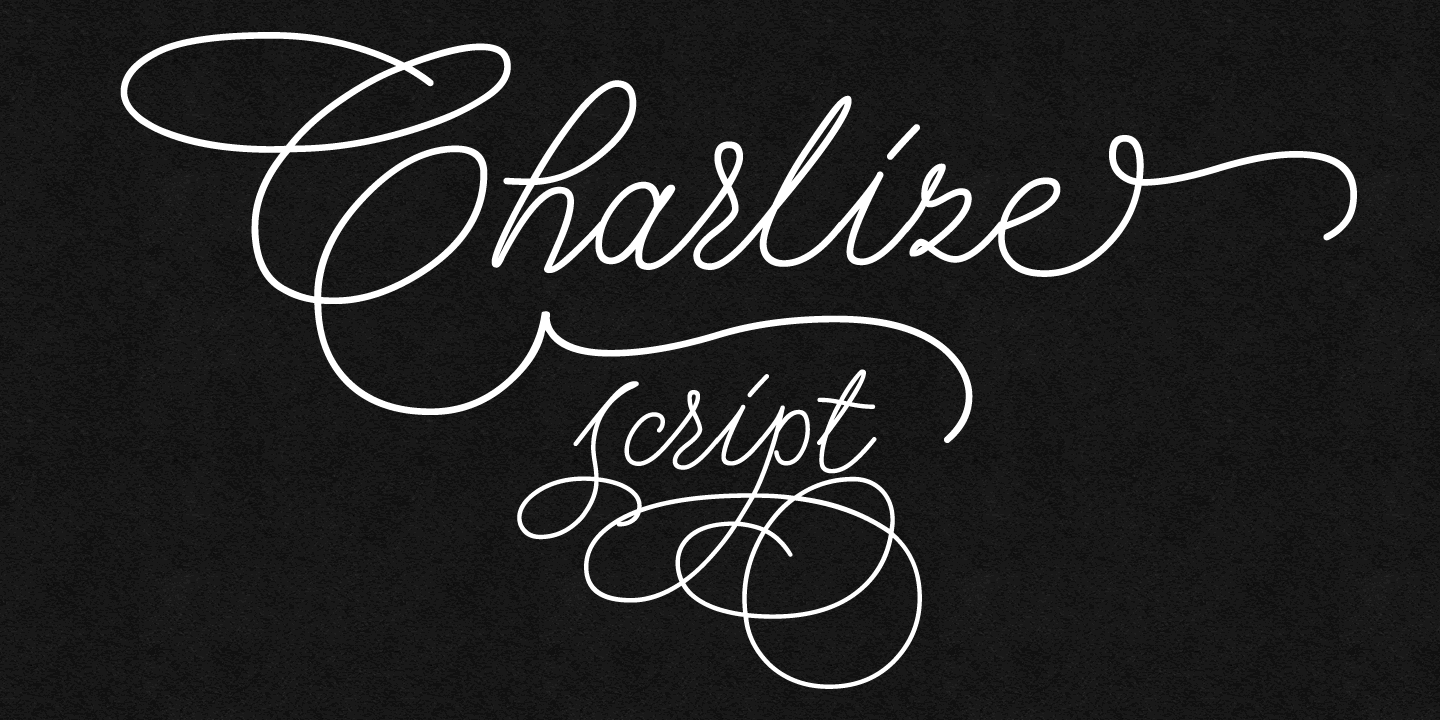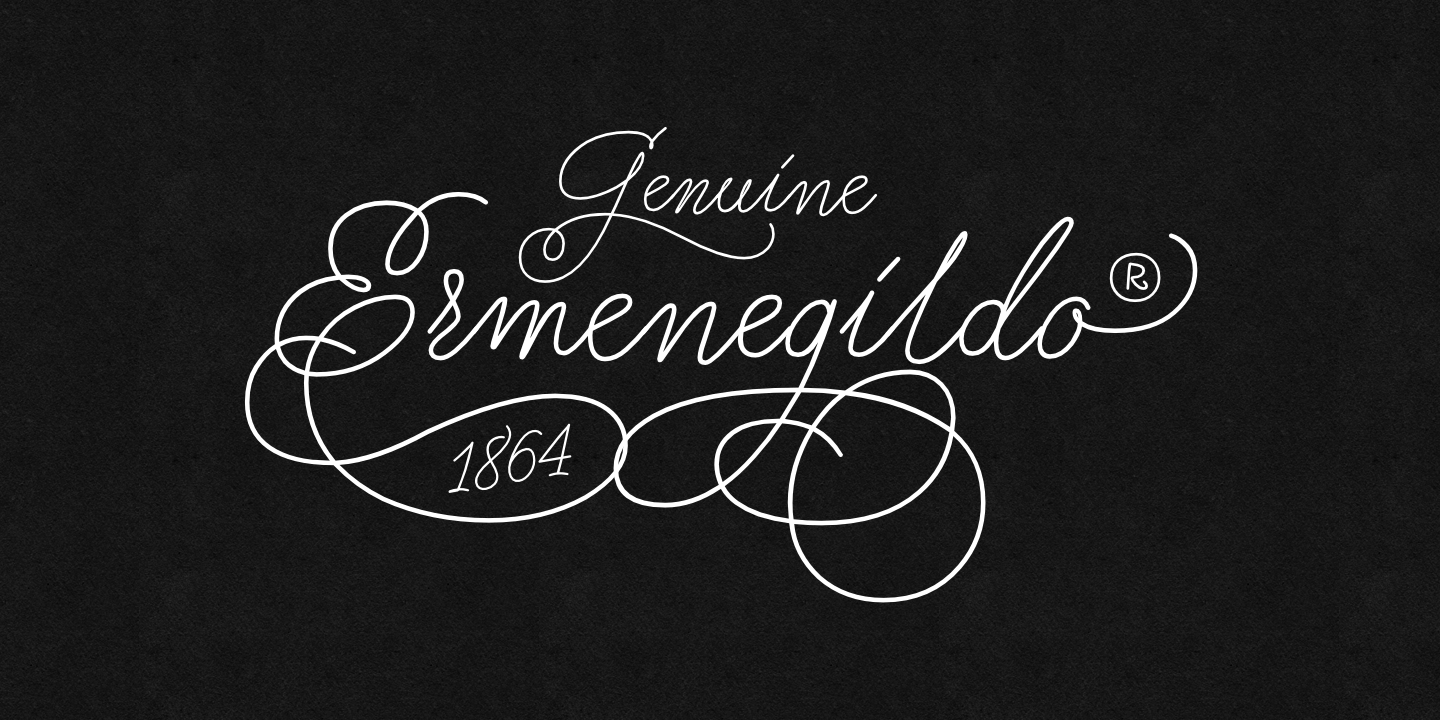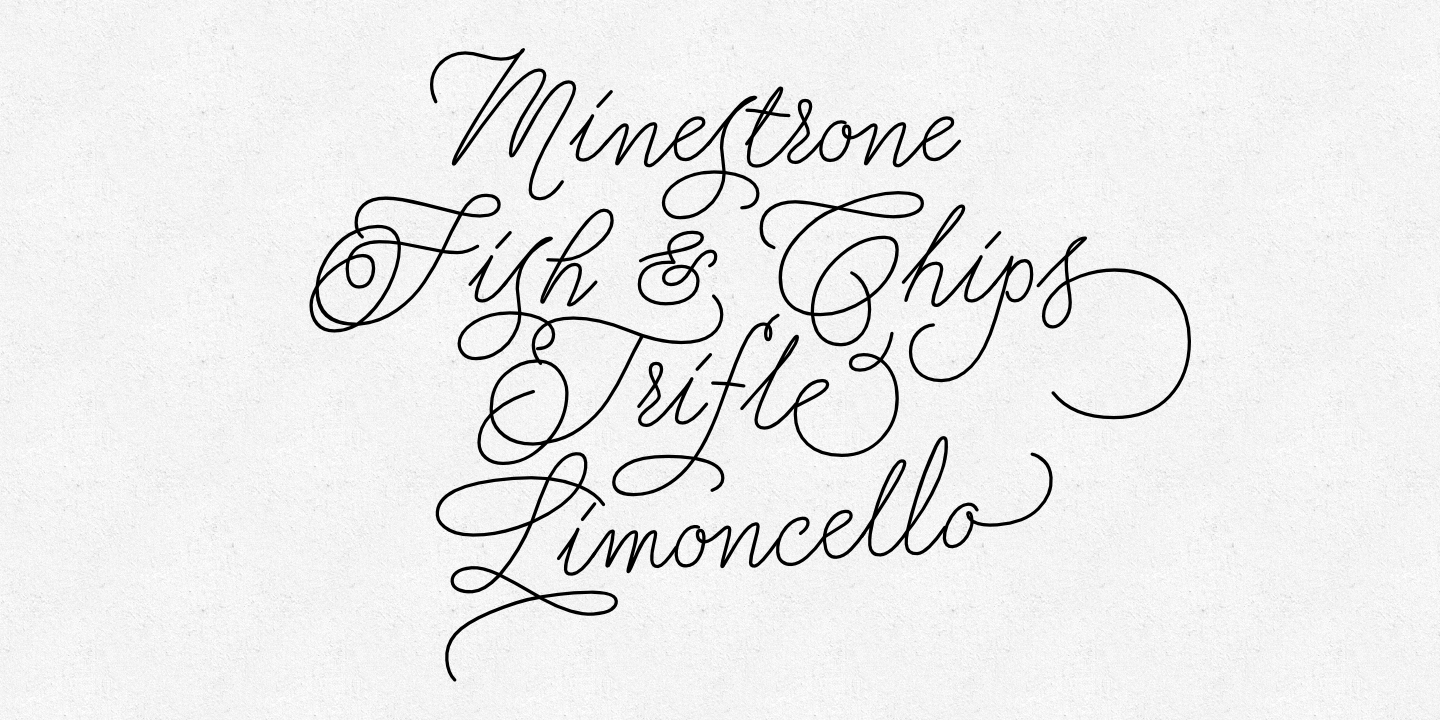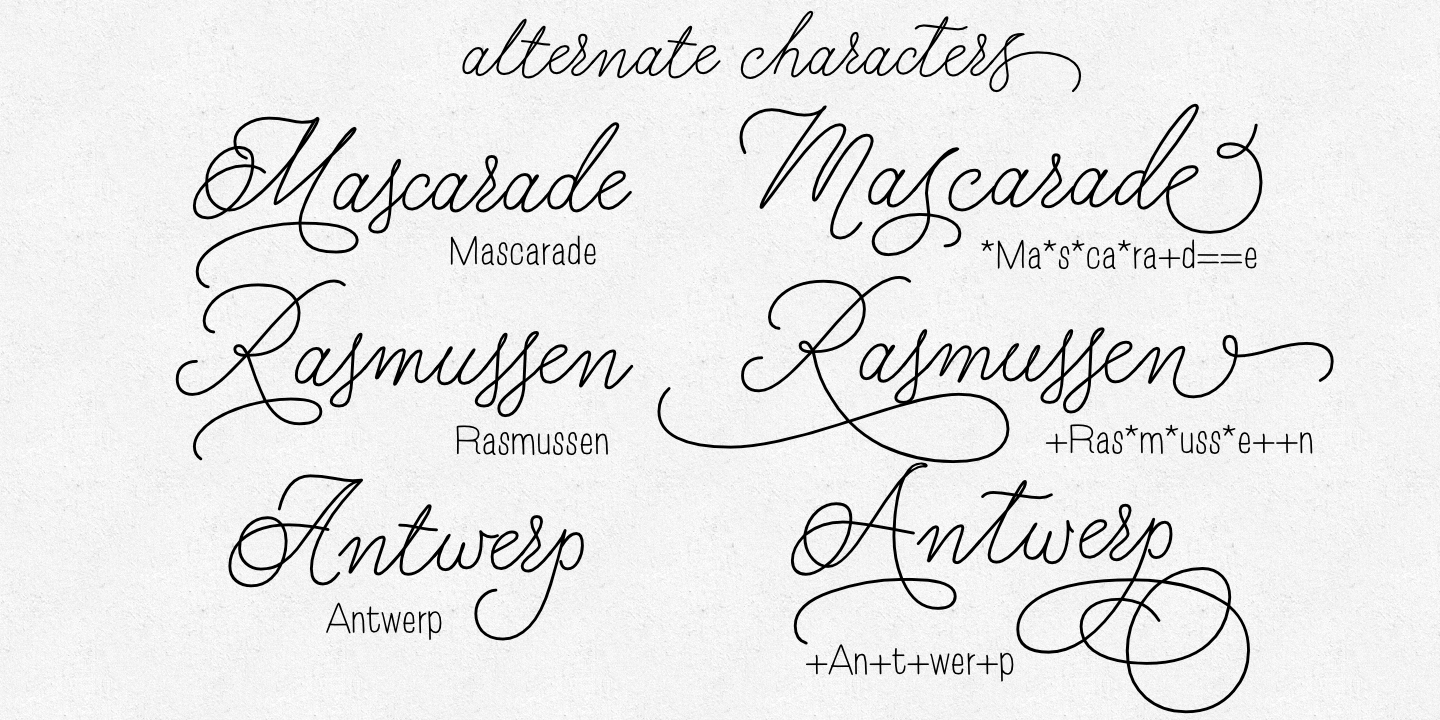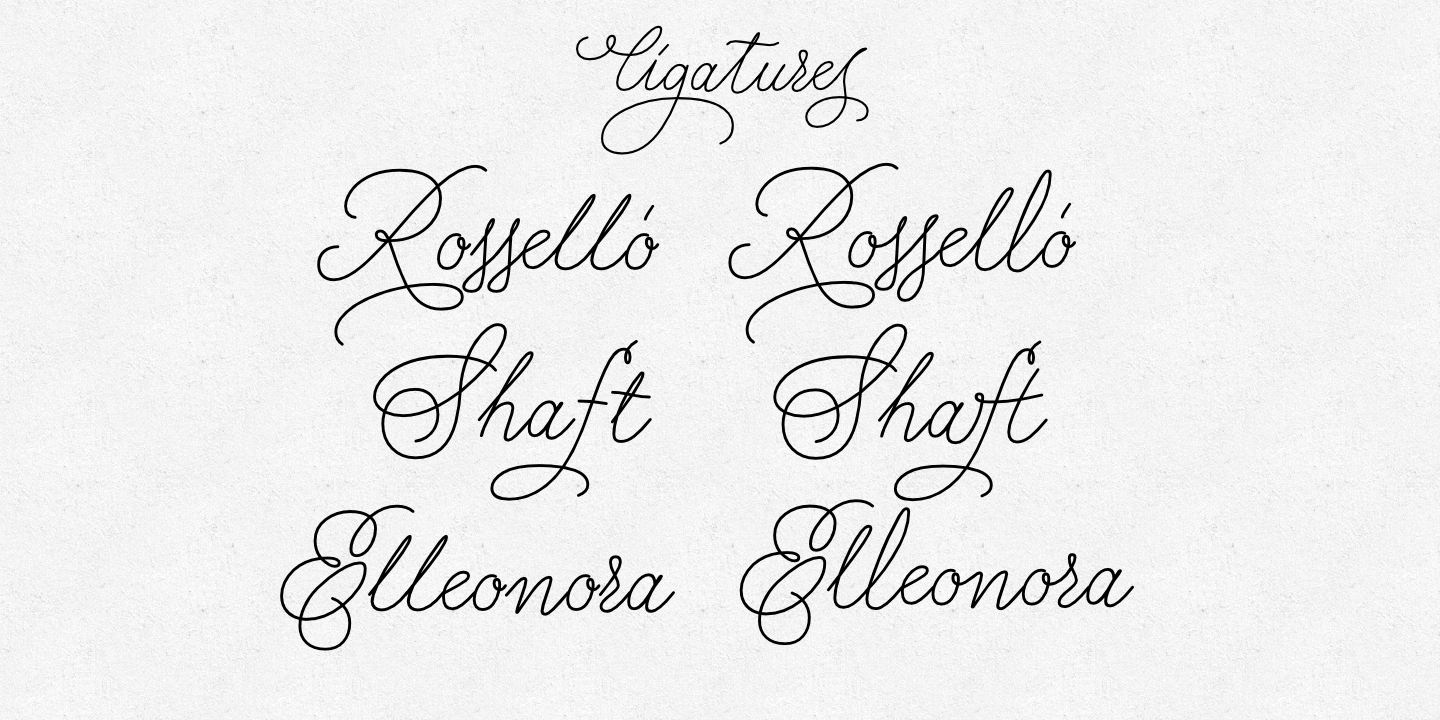
Charlize
Charlize is a handwritten, fully connected script with ligatures to help with flow and readability. It can be used for invitations, greeting cards, posters, advertising, weddings, books, menus etc.
Charlize pro is the most complete style, it contains over 740 glyphs. Every lowercase letter has six variations (uppercase letter has two). To get the alternate glyph just add "+?,?*?,?--?,?__?,?++? or ?==" before the letter in any OpenType savvy application or manually chosen the characters from Glyph Palette.
Charlize One and Charlize Two have less glyphs than the Pro one, they contain less alternates and ligatures.
Language support includes Western, Central and Eastern European character sets, as well as Baltic and Turkish languages.